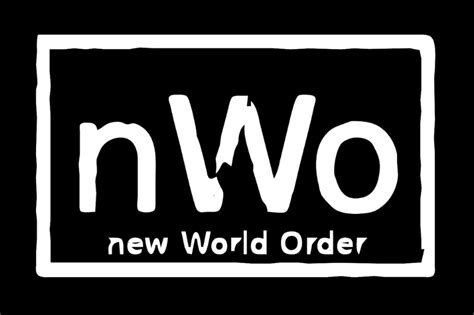
NWO Font: A Comprehensive Guide
What exactly is the NWO font ? Well, guys, we’re diving deep into the world of typography today, and the NWO font is a pretty cool one to explore. You might have seen it around, maybe on some edgy designs, band logos, or even in some gaming contexts. It’s got a distinct vibe, a certain swagger that makes it stand out. This font isn’t just about letters; it’s about a feeling, an aesthetic. We’re going to break down what makes this font tick, where you can find it, and how you can use it to give your own projects that extra oomph. So, buckle up, because we’re about to become font fanatics!
The Genesis of the NWO Font
The NWO font isn’t just some random collection of characters; it often stems from a specific aesthetic, most commonly associated with the World Championship Wrestling (WCW) stable, the New World Order. Think of that iconic black and white logo, the rebellious attitude, the feeling of being an outsider or a force to be reckoned with. That’s the energy the NWO font often embodies. While there isn’t one single, universally defined “NWO font” in the same way there’s a Helvetica or a Times New Roman, the term typically refers to fonts that capture the spirit and visual style of the NWO’s branding. This usually means bold, impactful lettering, often with sharp angles, a slightly distressed or grungy feel, or a futuristic, almost militaristic edge. The original NWO logo itself used a custom typeface, but the influence it had spawned a whole genre of similar-looking fonts. These fonts are designed to evoke power, a sense of disruption, and a powerful visual identity. When designers talk about an “NWO-style font,” they’re usually looking for something that has that same kind of aggressive, unforgettable presence. It’s about making a statement, not just displaying text. The popularity of the NWO wrestling faction meant their visual identity permeated pop culture, and typography was a huge part of that. The font needed to be as loud and impactful as the characters it represented – Hulk Hogan turning heel, Scott Hall and Kevin Nash invading, the whole rebellious chaos. This iconic branding has continued to inspire graphic designers, streetwear brands, and even independent artists looking for a font that screams attitude.
Key Characteristics of NWO-Style Fonts
So, what makes a font scream “NWO”? Let’s break down the key characteristics that define this typographic style. First off, boldness is king . These fonts are not shy. They are designed to grab your attention immediately. Think thick strokes, strong serifs (or sometimes a complete lack thereof for a more modern feel), and a general sense of weight. You’ll often see them in all caps, emphasizing their commanding presence. Another huge element is the angularity and sharpness . Forget soft, rounded edges. NWO-style fonts tend to feature sharp corners, pointed serifs, and aggressive lines. This gives them a dynamic, almost aggressive feel, like a blade or a lightning bolt. It’s this sharpness that conveys a sense of danger and rebellion, mirroring the attitude of the wrestling stable itself. You might also notice a distressed or gritty texture . Many fonts inspired by the NWO incorporate subtle (or not-so-subtle) imperfections. This could be worn edges, scuff marks, or a general unevenness that gives the font a raw, industrial, or even a vintage-punk vibe. It suggests that the font has been through a battle, just like the wrestlers it represents. Finally, futuristic or industrial elements are common. Some NWO-style fonts lean into a more sci-fi or mechanical aesthetic, with geometric shapes, blocky construction, and a sense of sleek, almost menacing design. It’s this combination of boldness, sharpness, texture, and a strong underlying concept that makes a font feel distinctly “NWO.” When you’re looking for a font like this, keep an eye out for these tell-tale signs. They’re the ingredients that create that instantly recognizable, powerful look. It’s like assembling a killer wrestling move; you need the right components to make it impactful. These fonts aren’t just about legibility; they’re about attitude and making a statement that resonates with strength and defiance.
Where to Find NWO-Inspired Fonts
How to Use NWO Fonts in Your Designs
Now that you know what to look for and where to find them, let’s talk about putting these NWO fonts to work in your designs! Using a font with this much personality requires a bit of finesse, but when done right, it can be incredibly impactful. Think big and bold . These fonts are best suited for headlines, titles, logos, and other prominent text elements where you want to make a strong statement. They’re generally not the best choice for long blocks of body text, as their strong characteristics can make them hard to read in smaller sizes or extended passages. Contrast is your friend . Pair your NWO-style font with a simpler, more neutral font for supporting text. This allows your main headline to really pop without overwhelming the reader. A clean sans-serif or a simple serif font can provide a great balance. Consider the context . Is your project about rebellion, power, sports, or a futuristic theme? An NWO font can be perfect for these kinds of vibes. It works exceptionally well for branding, posters, album art, t-shirt designs, and anything that needs to convey a sense of energy and attitude. Embrace the aesthetic . Don’t be afraid to lean into the grunge or industrial feel if that’s part of the font’s design. You can use textures, distressed backgrounds, or a limited color palette (like black, white, and red, a nod to the original NWO) to complement the font. Experiment with effects . Sometimes, adding subtle effects like a slight outline, a drop shadow, or a metallic texture can enhance the font’s impact. However, use these sparingly – you don’t want to clutter the design. The key is to let the font do the heavy lifting. It’s got a lot of inherent power, so guide it, don’t overpower it. Remember the original NWO: they were disruptive, they were in your face, and they were unforgettable. Your typography can be too! Use these fonts strategically to create designs that demand attention and leave a lasting impression. They’re tools for creating impact, so wield them wisely and watch your projects come to life with a jolt of adrenaline.
The Legacy and Influence of NWO Typography
The legacy and influence of NWO typography extend far beyond the wrestling ring, guys. It’s a testament to how powerful visual branding can be. The New World Order stable in WCW wasn’t just about charismatic wrestlers and controversial storylines; it was a complete package. Their iconic black, white, and red color scheme, combined with that distinctive, aggressive logo and font, created an instantly recognizable and formidable identity. This wasn’t just branding for a wrestling show; it became a cultural phenomenon. Think about it – people weren’t just buying merchandise with the NWO logo; they were adopting the attitude and the aesthetic. This is where the typography truly shines. The font needed to embody the rebellion, the chaos, and the sheer audacity of the group. It had to look like it belonged to an invading force, something disruptive and powerful. And it did. The impact was so significant that it spawned countless imitations and inspired a whole generation of designers. You see its influence in sports branding, particularly in teams that want to project an aggressive, underdog, or dominant image. It’s visible in streetwear, where bold, graphic logos with a sense of edge are always in demand. Even in music and gaming, fonts that carry that same weight and attitude often draw their lineage back to the visual language established by the NWO. It proved that a font isn’t just a way to read words; it’s a powerful tool for conveying emotion, attitude, and identity. The NWO’s typographic choices were a masterclass in creating a visual signature that resonated deeply with its audience and continues to inspire today. They showed us that sometimes, the most effective way to communicate power is through simple, bold, and unforgettable design. It’s a legacy that proves the enduring power of a well-chosen typeface in shaping perception and creating lasting cultural impact. It’s more than just letters; it’s a statement.